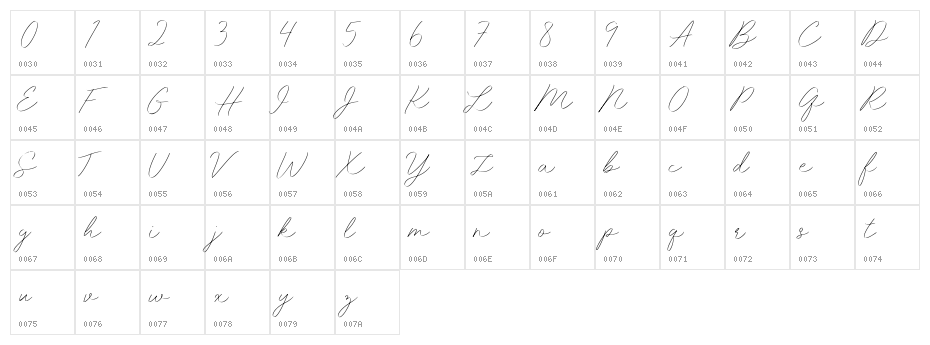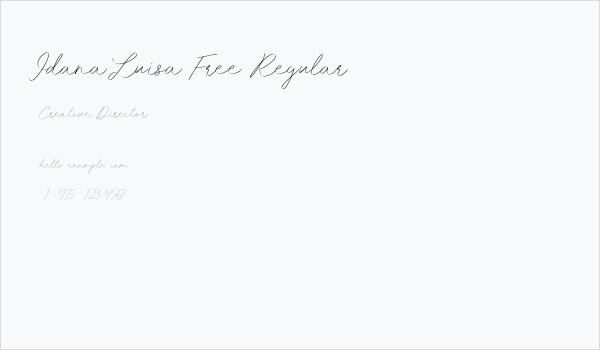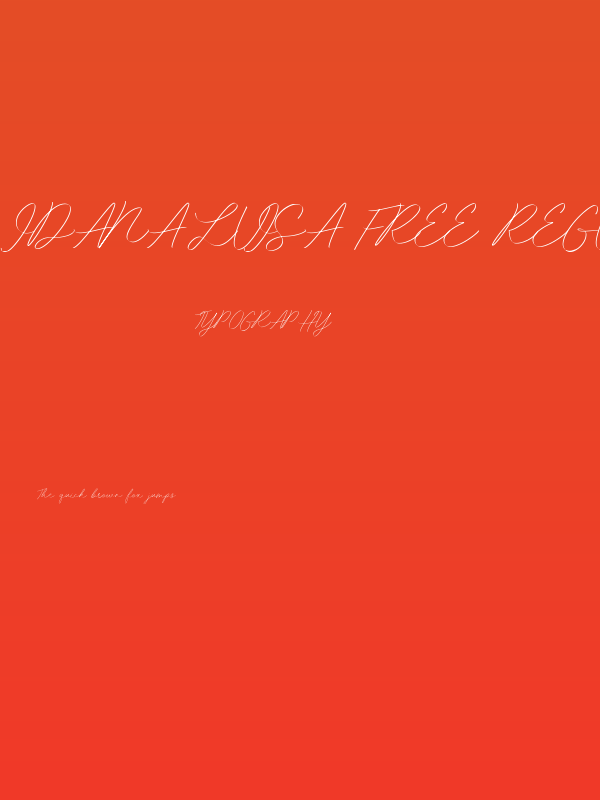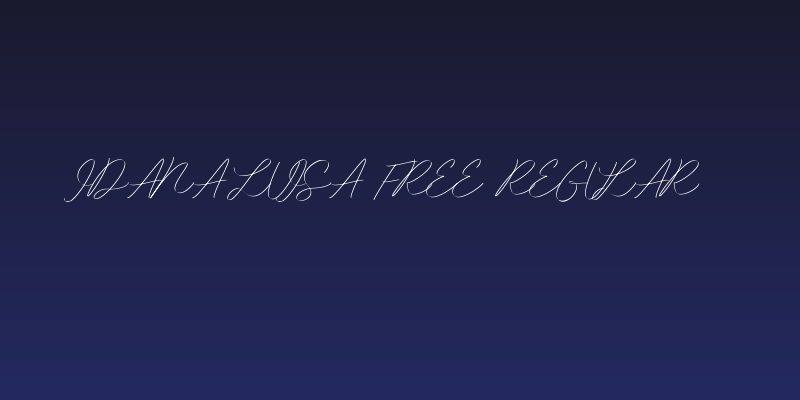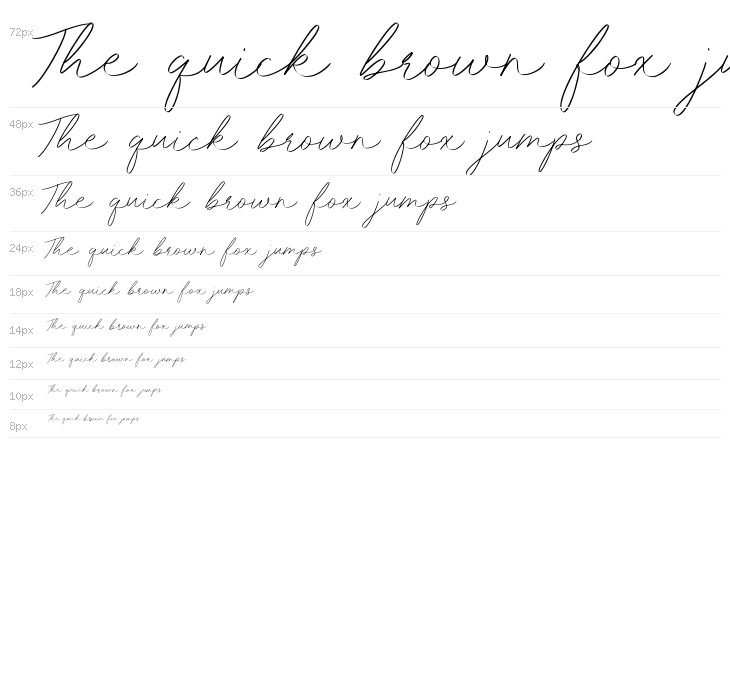
Idana Luisa Free Regular Font
Idana Luisa Free Regular Description
This elegant script font features a flowing, cursive style with a delicate and refined appearance. The characters are interconnected with smooth, sweeping lines that convey a sense of grace and fluidity. The uppercase letters are slightly more embellished, adding a touch of sophistication, while the lowercase letters maintain a consistent rhythm and balance. The numerals and special characters are designed to complement the overall aesthetic, ensuring a cohesive look across all text. This font is perfect for projects that require a personal, handwritten touch, such as invitations, greeting cards, or branding materials.
| Overall Style | Elegant, Handwritten |
| Use Case | Logos, Invitations, Personal branding |
| Proposed Projects | Ideal for wedding invitations, greeting cards, personal branding, and elegant stationery. |